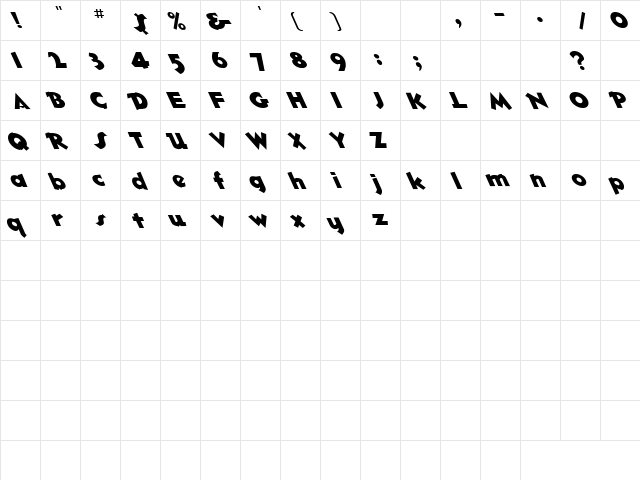
Blue Table 2 Regular Font Preview
Blue Table 2 Regular
Blue Table 2 Regular Font Details
Design Context for Blue Table 2 Typeface
Blue Table 2 is a composed and adaptable typeface that performs quietly and consistently across a wide range of design contexts.